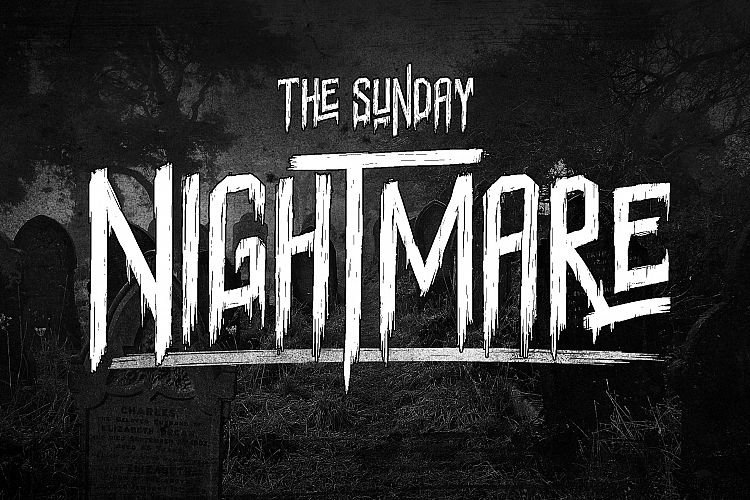
Sunday Nightmare Typeface
To prepare for the Halloween festival season. I would like to introduce to you an impressive typography, help you create creative designs for the Halloween festival. Introducing Sunday Nightmare Typeface! Sunday Nightmare Typeface is handmade font that inspired by movie “halloween”,”the walking dad”,”and local ghost movie. Suitable for digital lettering, branding materials, t-shirt, print, business cards, quotes, logo, poster, t-shirt, and for any graphic design.